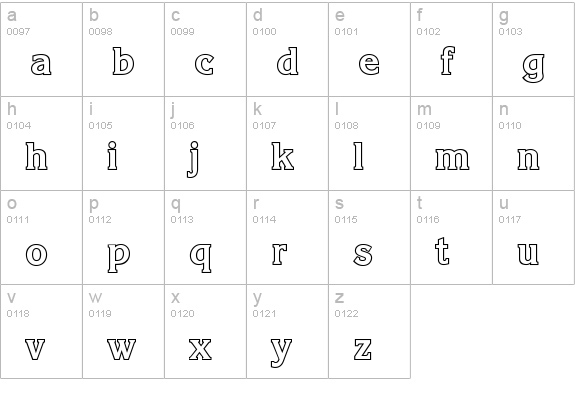
Korinna* Outline Font Details
Korinna Outline font is a stylish and versatile typeface that exudes elegance and sophistication. With its clean lines and geometric shapes, this font is perfect for adding a modern touch to any design project. The outline version of Korinna adds a unique twist to the classic serif font, making it stand out and grab attention. Best of all, Korinna Outline font is completely free to download at FontsMarket.com. Whether you are working on a logo, poster, website, or any other creative project, this font will elevate your designs and give them a professional look. Don't miss out on the opportunity to enhance your creations with the timeless beauty of Korinna Outline font - download it for free today at FontsMarket.com!